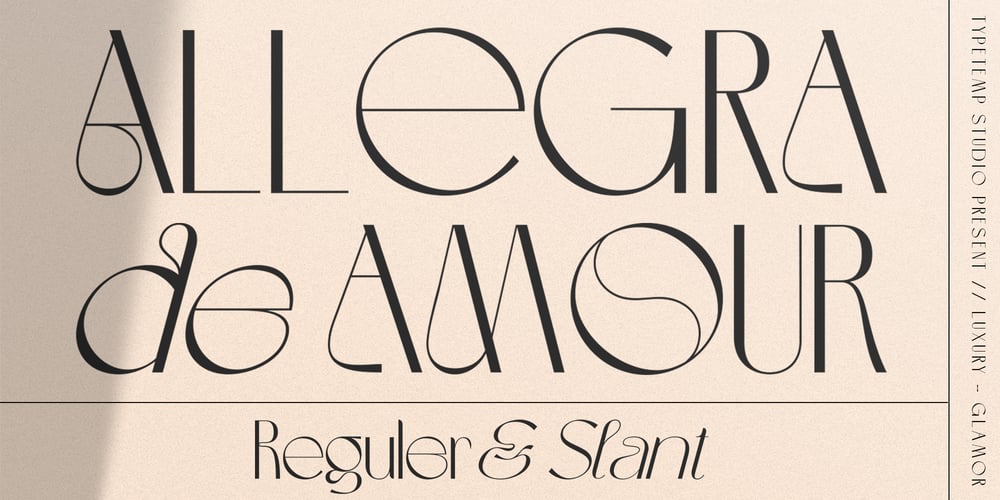
Allegra de Amour
Allegra de Amour font
Allegra de Amour Font Family was designed by Egi Ahmad Mufid and published by Typetemp Studio. Allegra de Amour contains 2 styles and family package options. Allegra de Amour Font is Sans-Serif Font with upper and lowercase is complemented by some of the same alternatives made with love. Access your OpenType features to access the large selection of alternate letters and ligatures, select the letters you like from the large variety to get the display font you like. Perfect for editorial projects, Logo design, Clothing Branding, product packaging, magazine headers, or simply as a stylish text overlay to any background image.Features : Uppercase and Lowercase Stylistic Alternates & Ligatures Numerals & Punctuation Multilanguange PUA Encoded